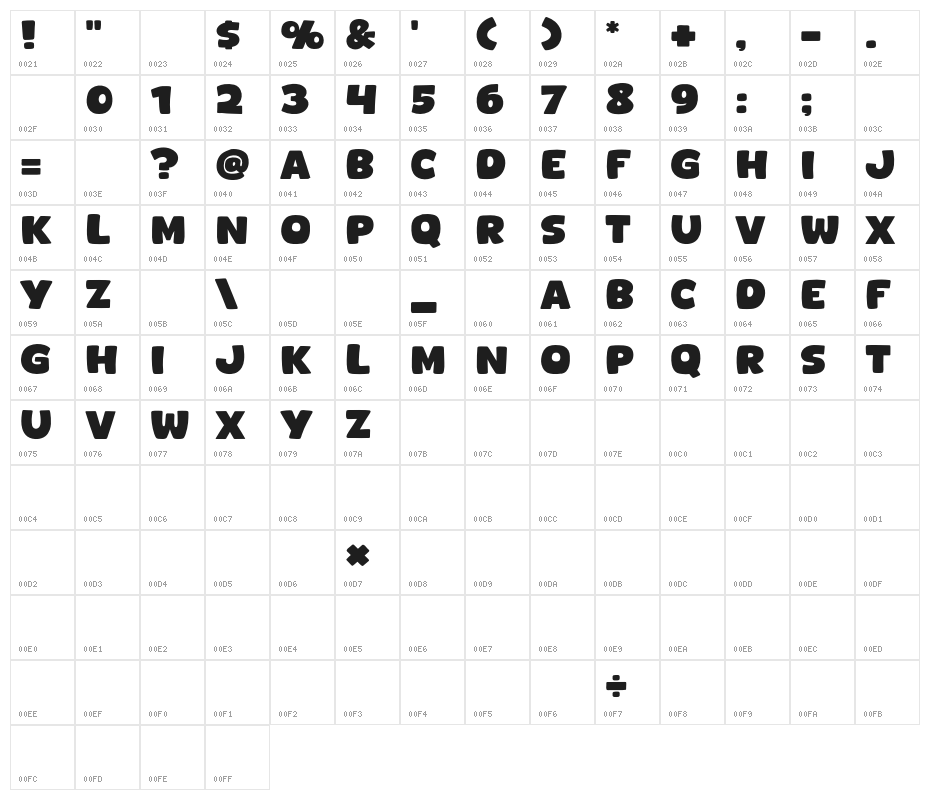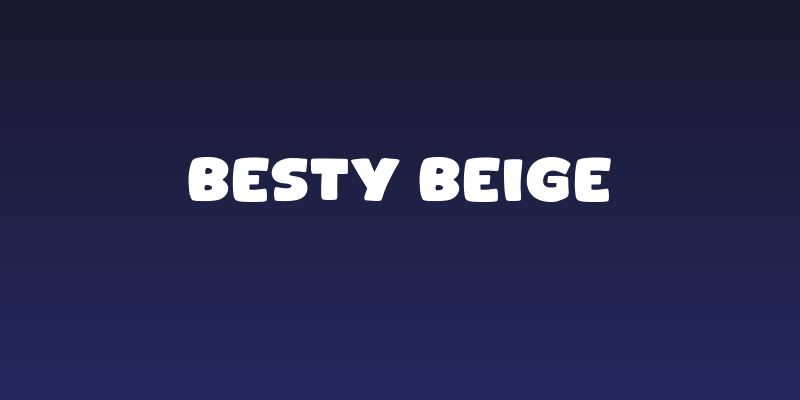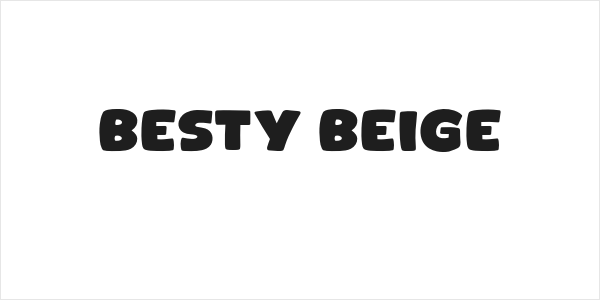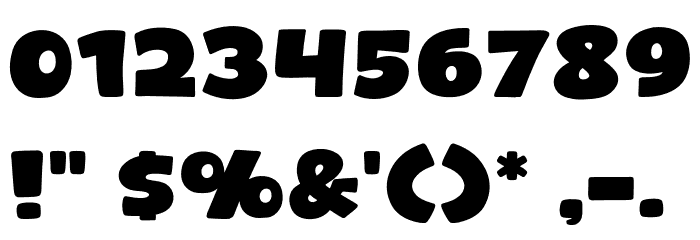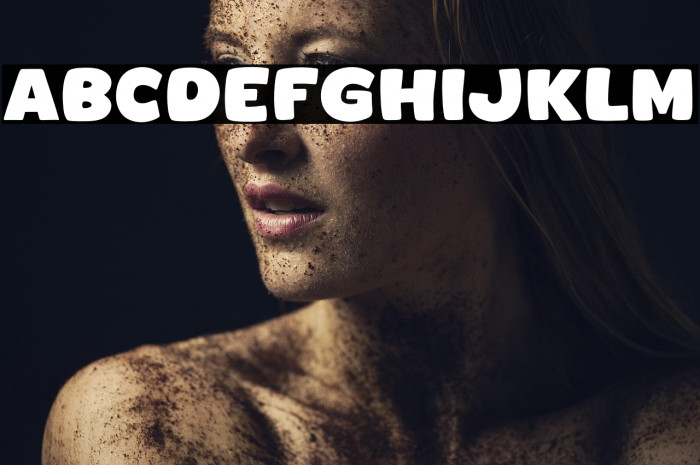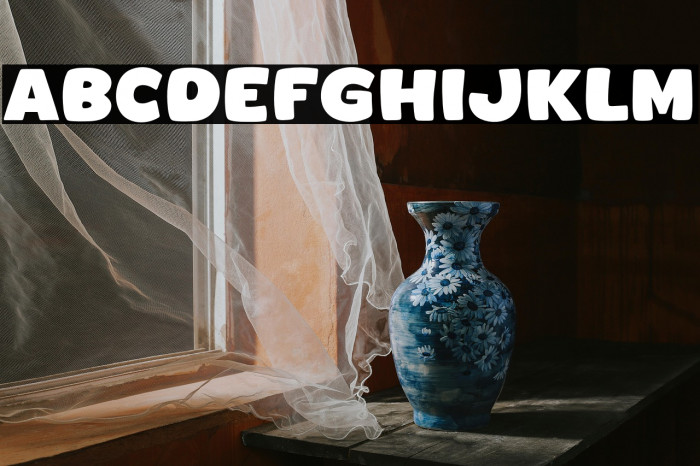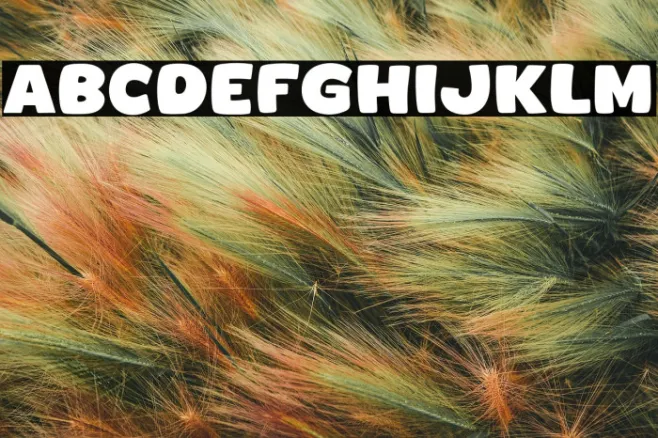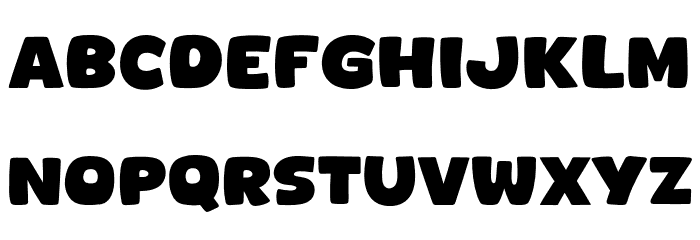
Besty Beige Font
Besty Beige Description
This font features bold, rounded characters with a playful and friendly appearance. The letters are uniformly thick, giving them a strong presence on the page. The rounded edges and lack of sharp angles contribute to a soft and approachable feel. The characters are evenly spaced, ensuring readability while maintaining a cohesive look. The numbers and special characters follow the same design principles, making them consistent with the alphabet. This font is ideal for projects that require a fun and inviting tone.
| Proposed Projects | Ideal for children's books, playful branding, posters, and social media graphics. |